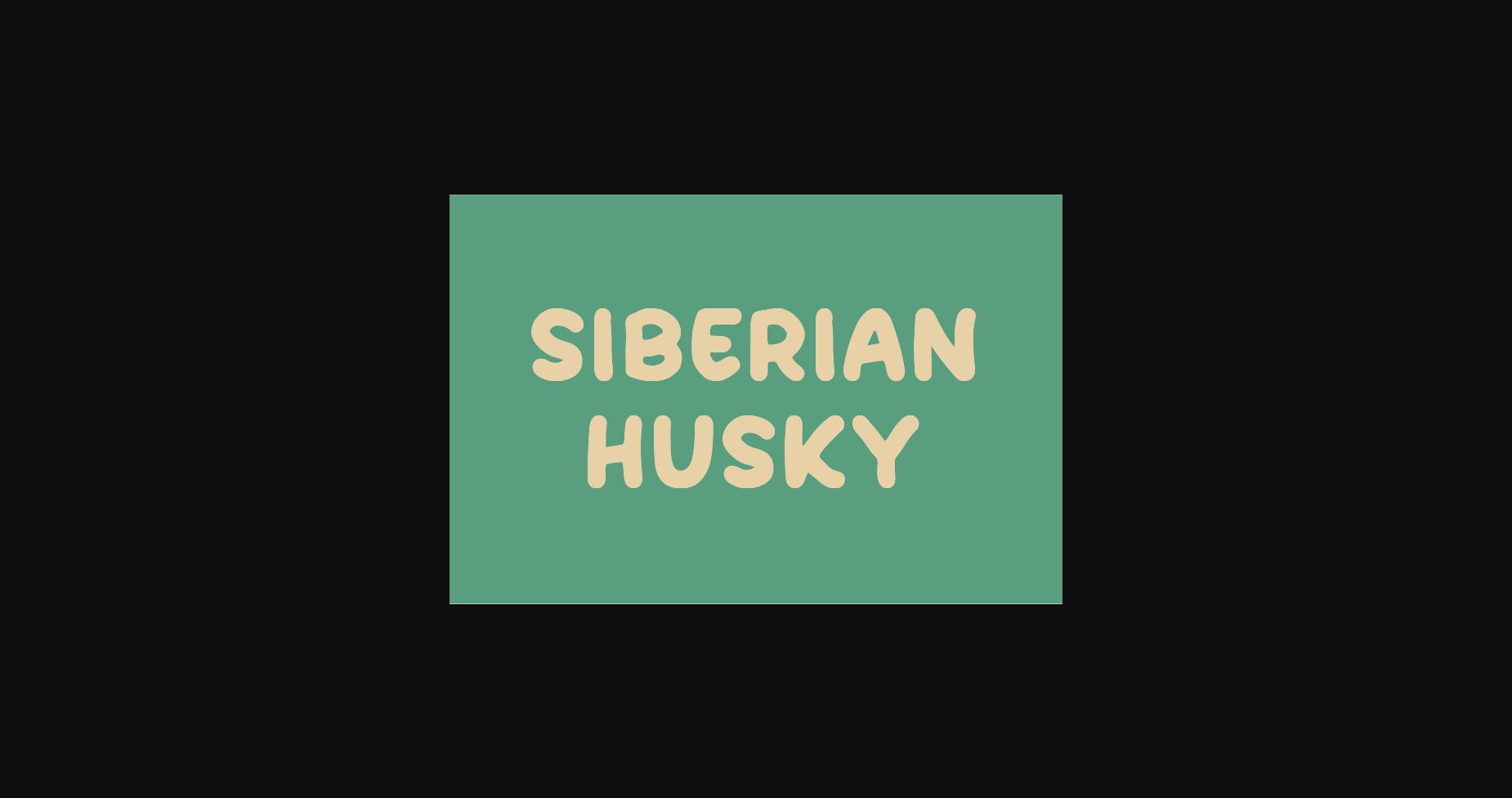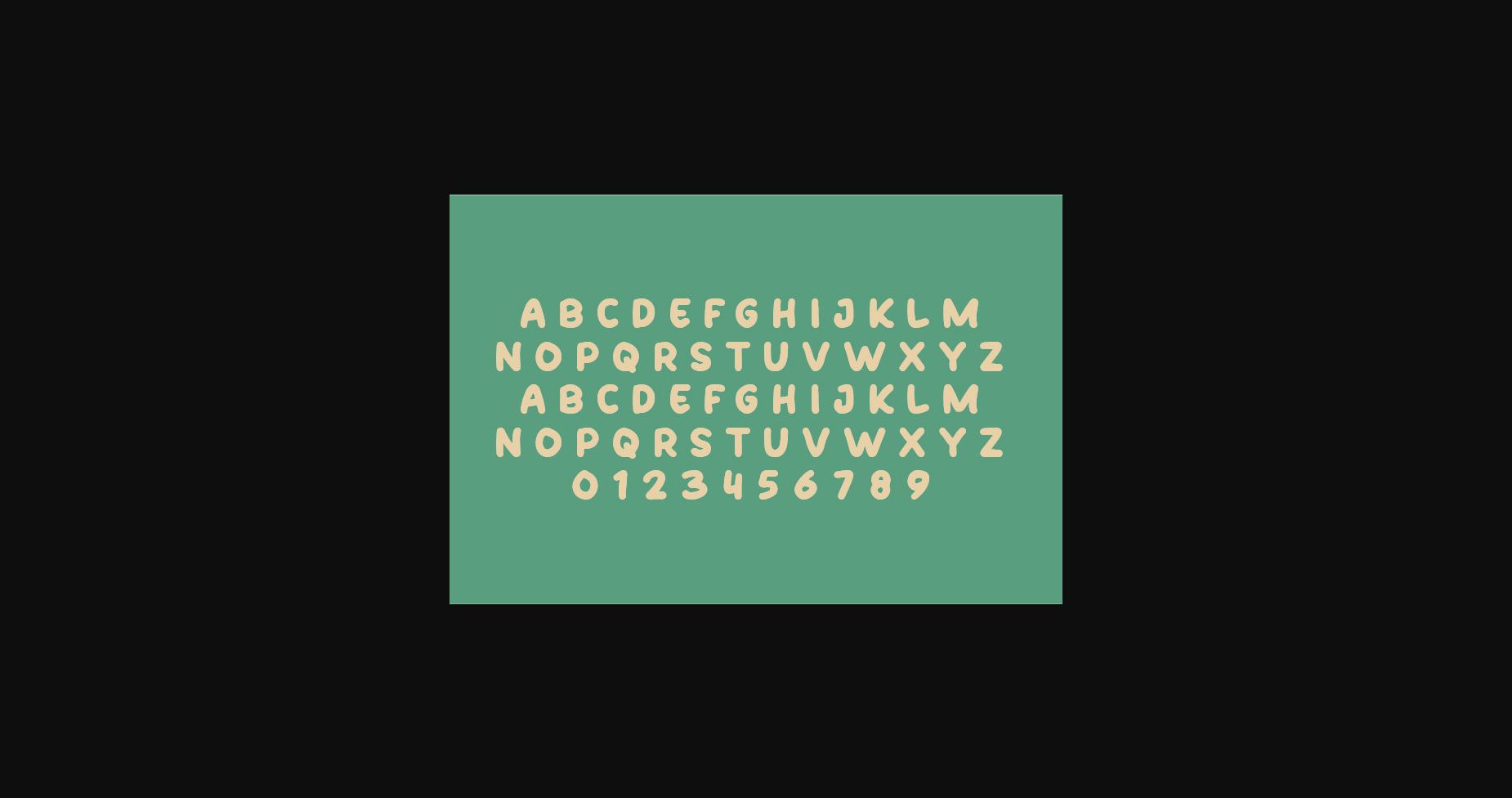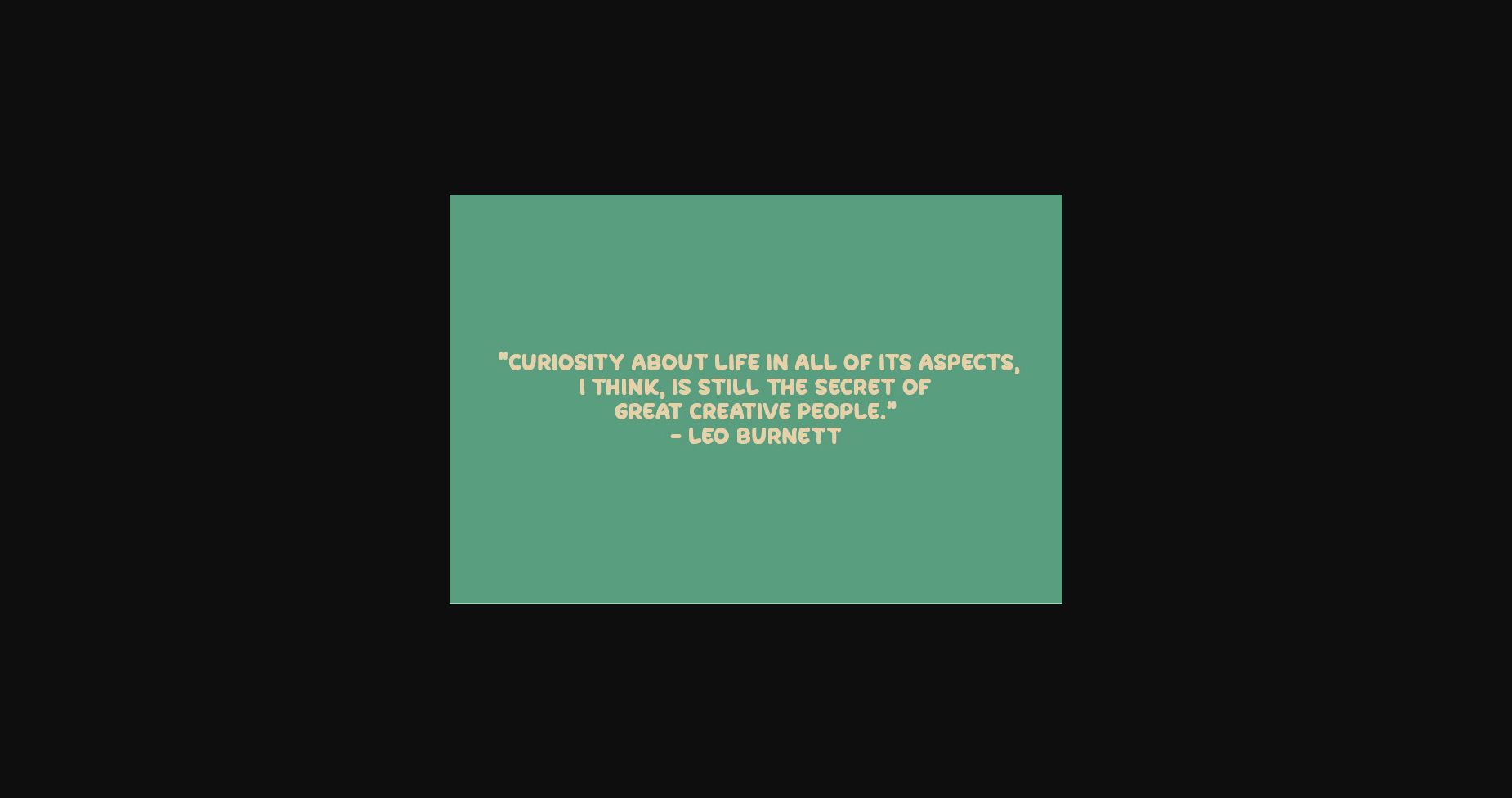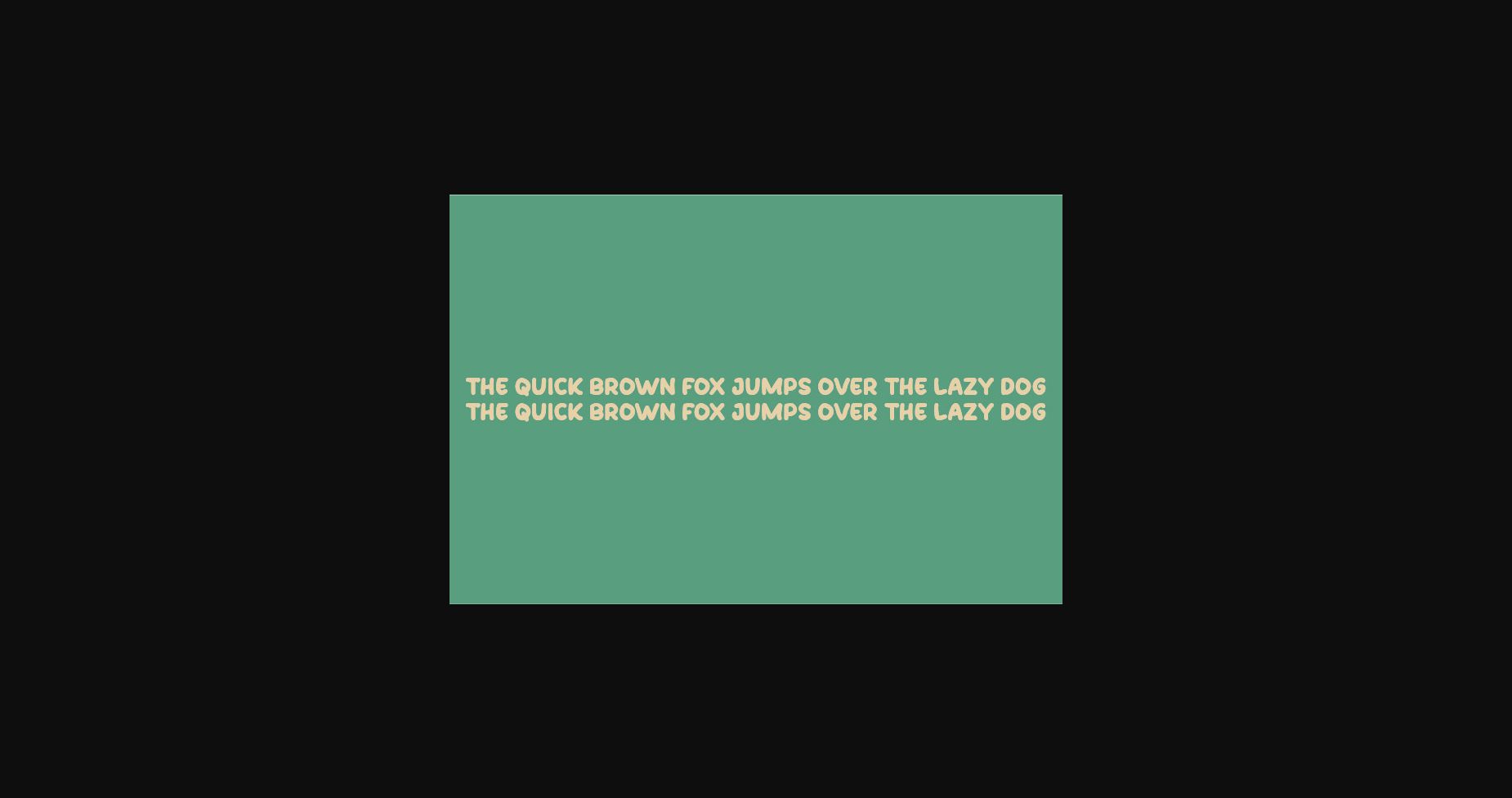
Siberian Husky Font
About Siberian Husky Font
Siberian Husky is a neat and minimalistic sans serif font, perfect for your next creative project! Its characters are bold and well-rounded, ready to be used in headlines, banners, book covers, or more.